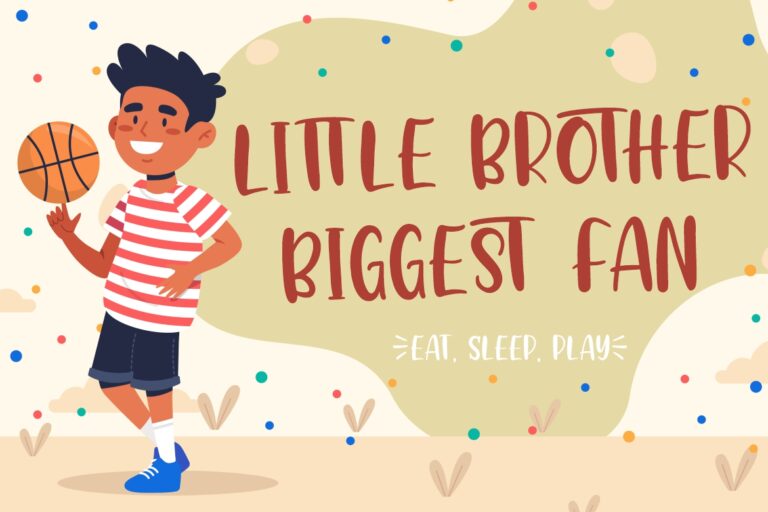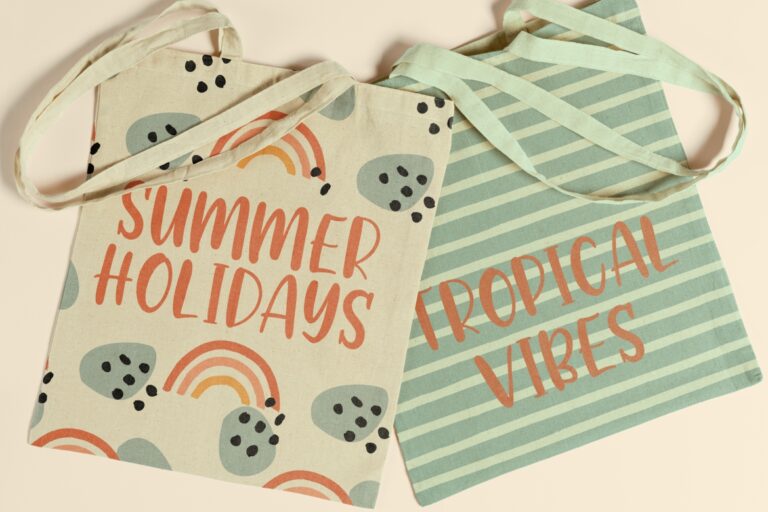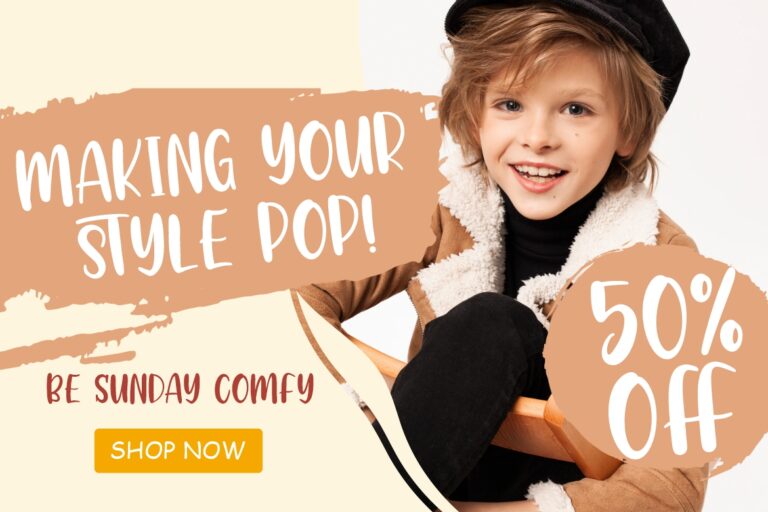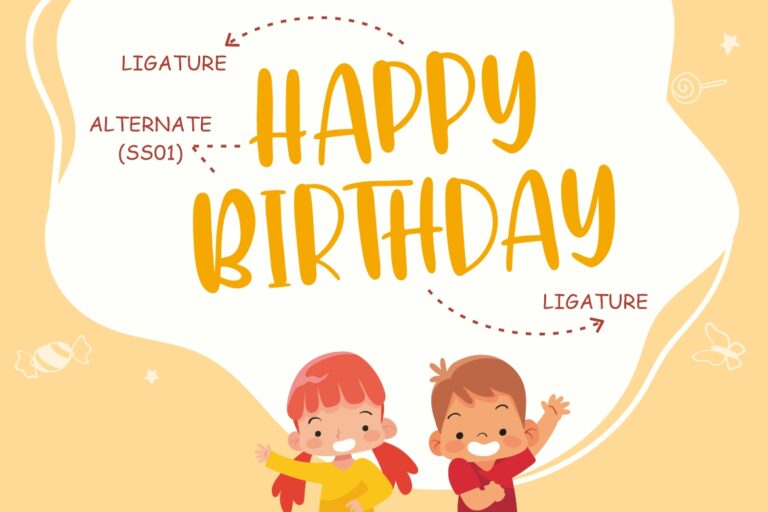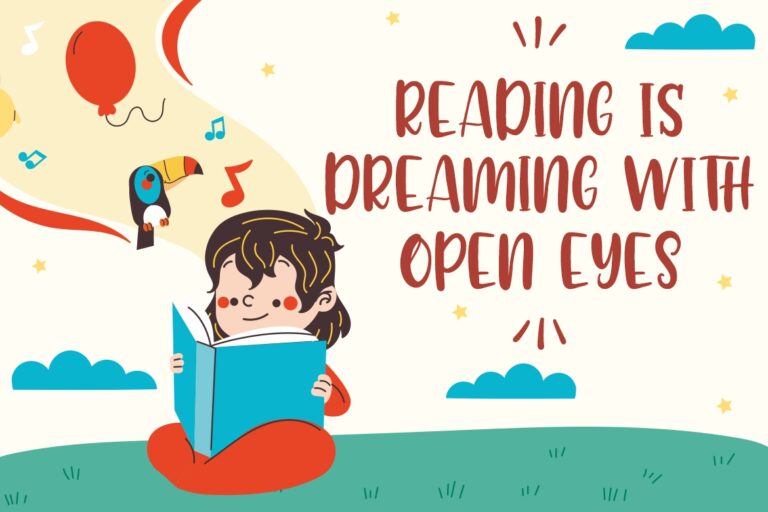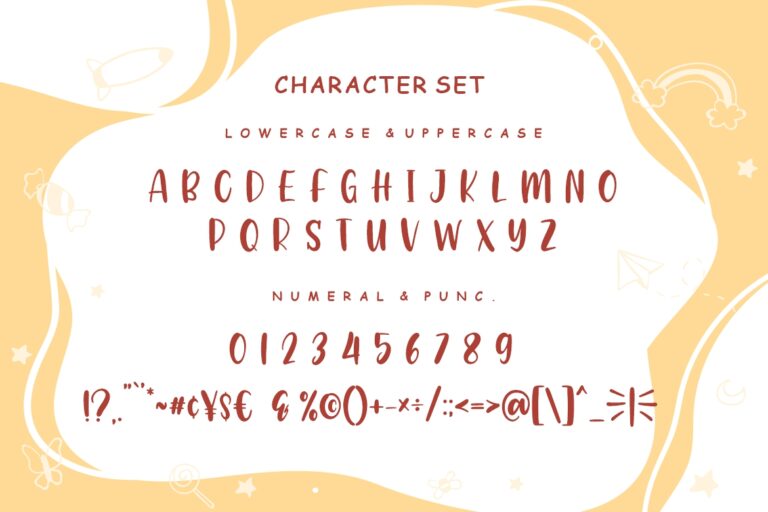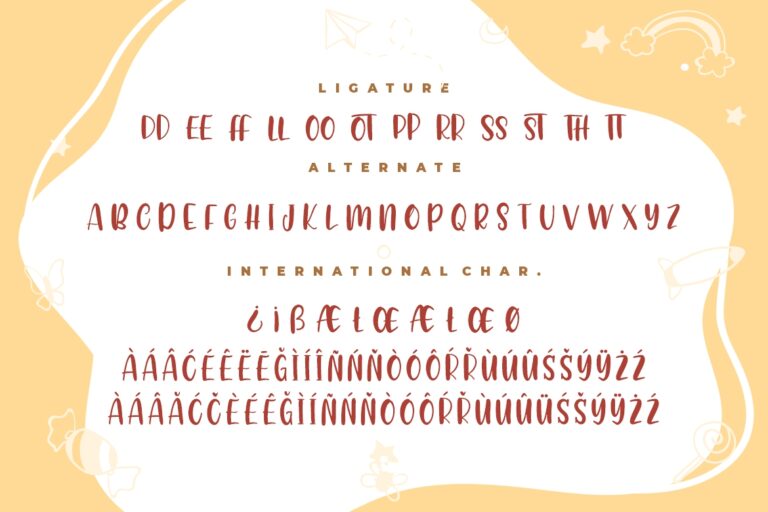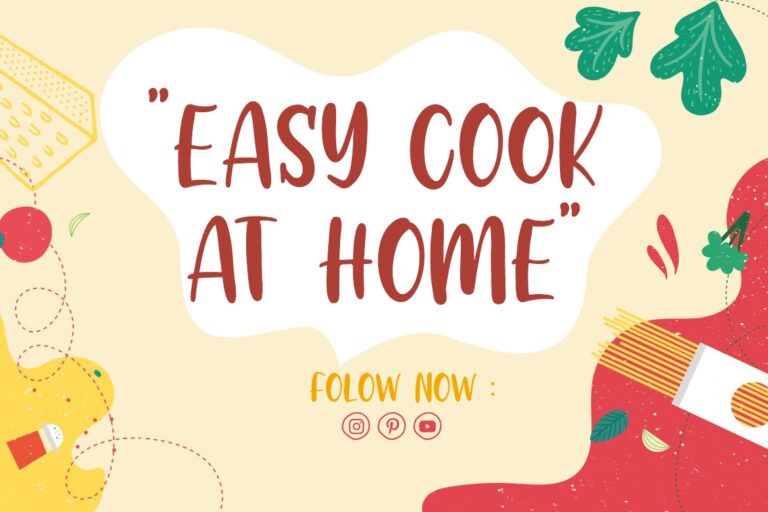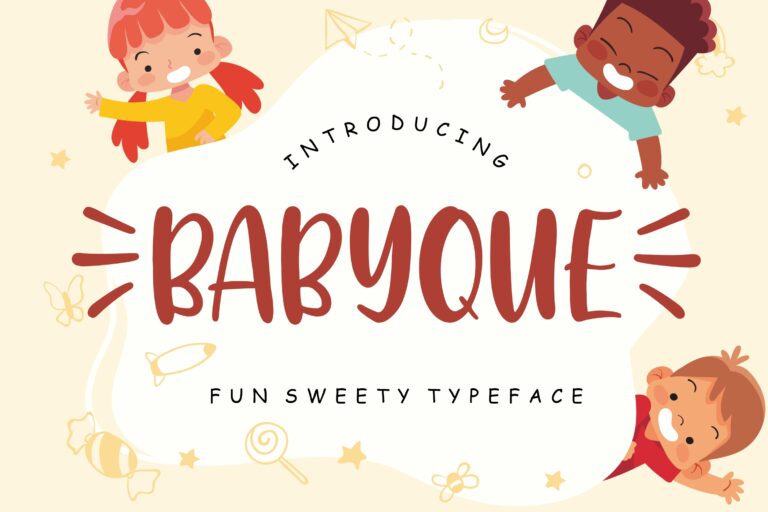
Babyque a brush fun sweety display font which perfect for children and kindergarten occasion.
Babyque would perfect for photography, watermark, social media posts, advertisements, logos & branding, invitation, product designs, label, stationery, wedding designs, product packaging, special events or anything that need handwriting taste.
• Ligatur & Alternate
Babyque Fun Sweety Typeface